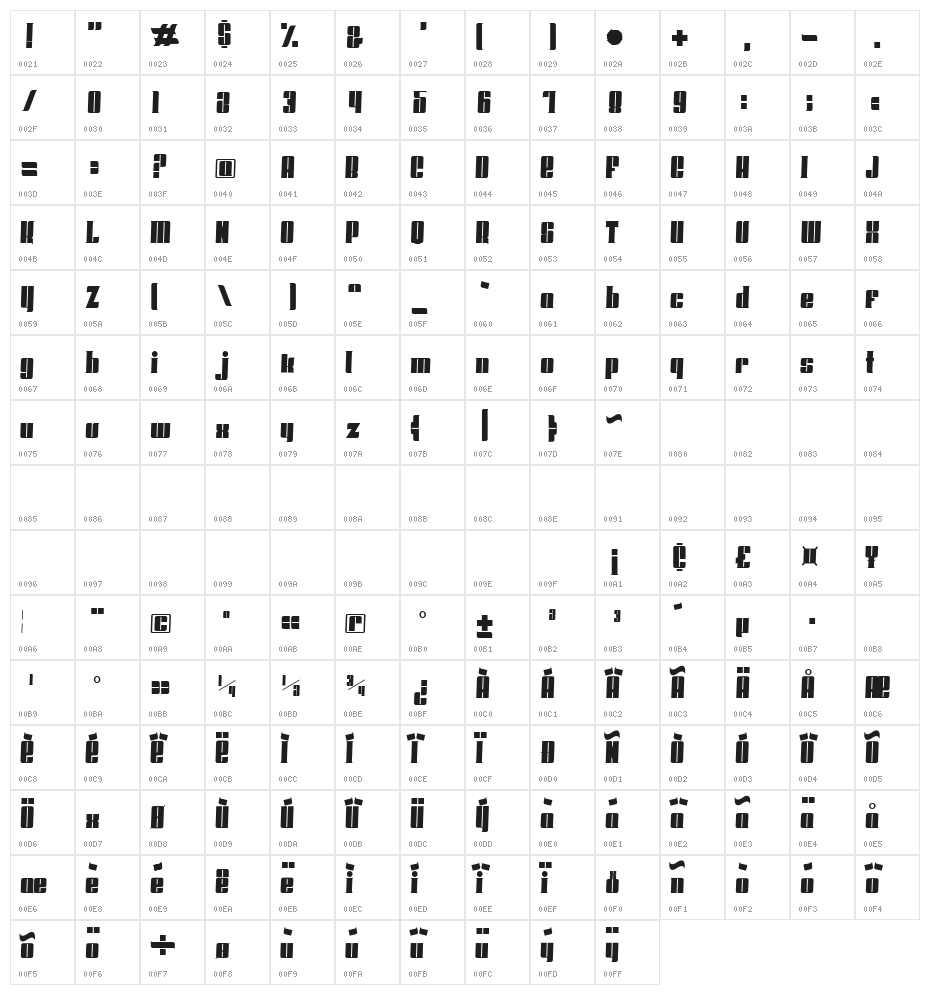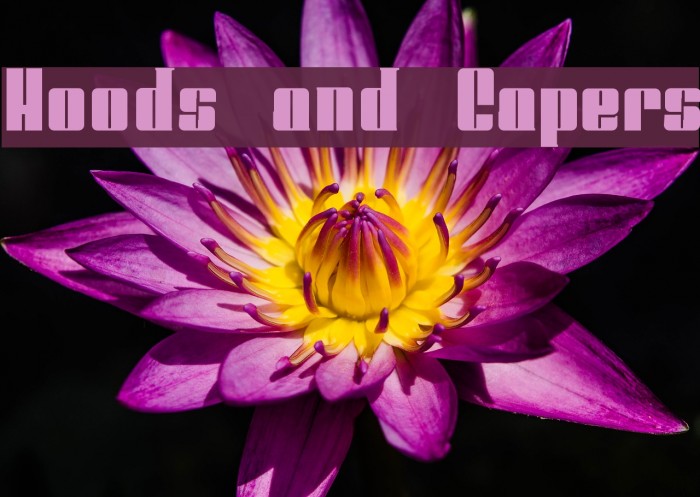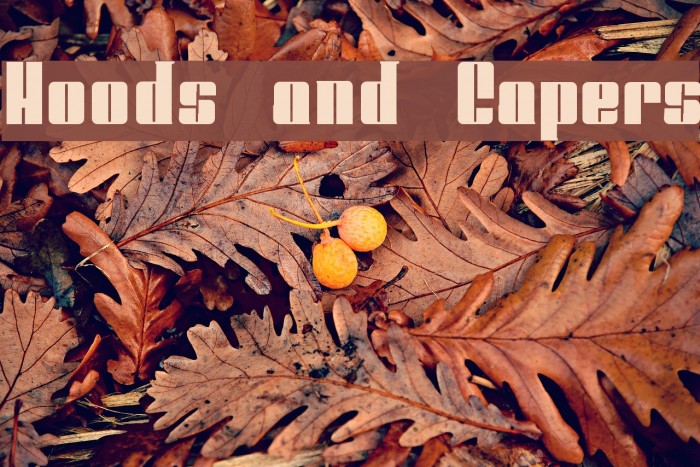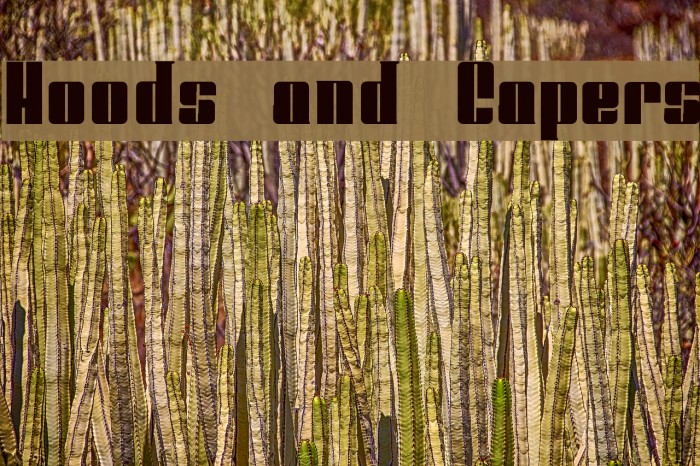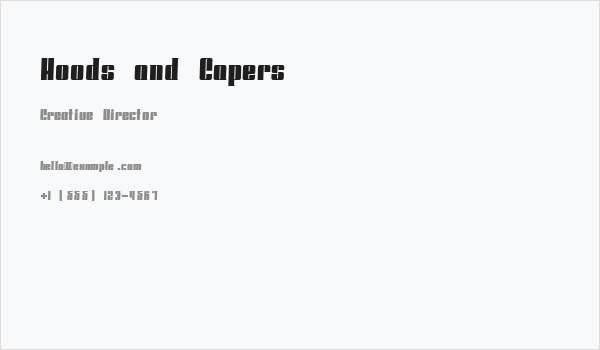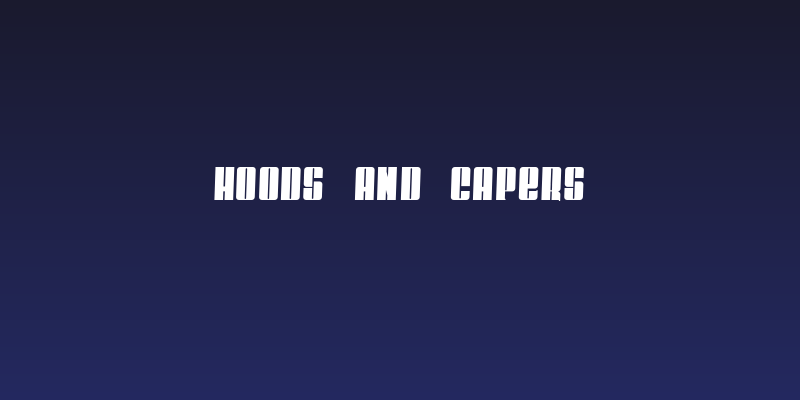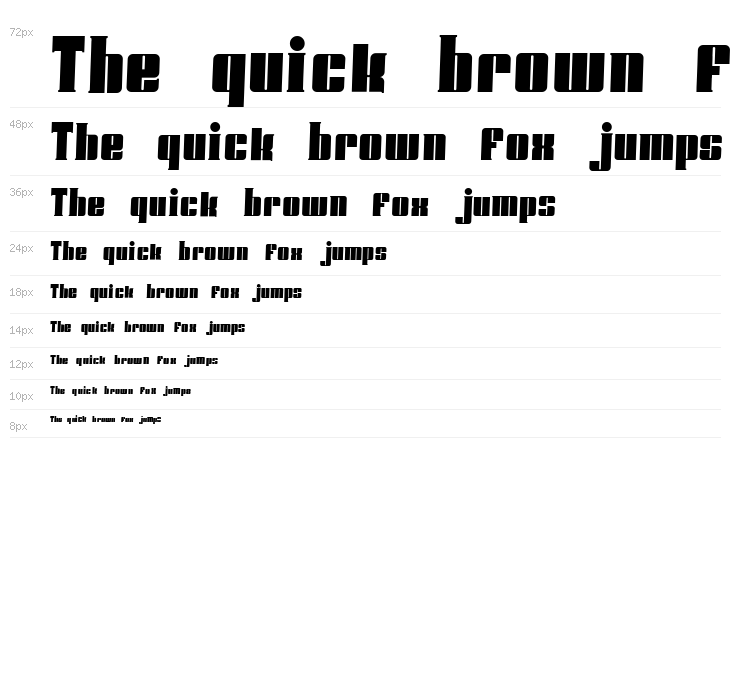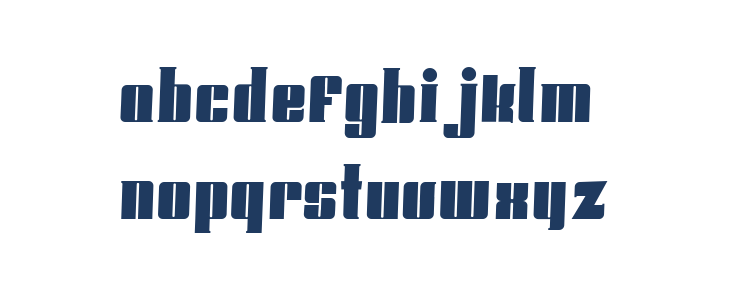
Hoods and Capers Font
Hoods and Capers Description
This font features a bold and striking design with a strong presence. The characters are blocky and geometric, giving it a modern and industrial feel. The uppercase letters are particularly prominent, with a uniform height and width that creates a sense of balance and stability. The lowercase letters maintain the boldness of the uppercase, with slightly rounded edges that add a touch of softness to the overall design. Numbers and special characters are consistent with the bold style, ensuring a cohesive look across all text. The font's unique style makes it ideal for attention-grabbing headlines and impactful designs.
| Proposed Projects | Ideal for posters, logos, branding, and any design requiring a strong visual impact. |